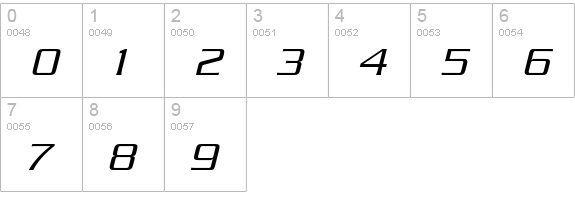
Serpentine Light Oblique Font Details
Serpentine Light Oblique is a refined, elegant, italic variant in the Serpentine typeface family \xE2\x80\x94 well suited to elegant body text, refined sub-headings, and luxury branding.
Serpentine Light Oblique font is a stunning typeface that effortlessly combines elegance and modernity. Its sleek and slanted design gives any text a dynamic and contemporary look, making it perfect for various creative projects. This font features a unique blend of curved and straight lines, creating a harmonious balance that catches the eye. The subtle slant adds a touch of sophistication, making it suitable for both professional and personal designs. With its light weight, Serpentine Light Oblique font exudes a sense of grace and subtlety. It is ideal for conveying a sense of elegance and refinement in branding materials, logos, invitations, and more. One of the best things about Serpentine Light Oblique font is that it is free to download at FontsMarket.com. This means that you can easily access this exceptional font and incorporate it into your projects without any cost. The font's availability on FontsMarket.com ensures that designers and typographers have easy access to this beautiful typeface. Whether you're designing a website, creating a brochure, or working on a personal project, Serpentine Light Oblique font is a versatile choice that will enhance your designs. With its free availability and exceptional style, this font is a must-have for any designer looking to add a touch of elegance and modernity to their work.